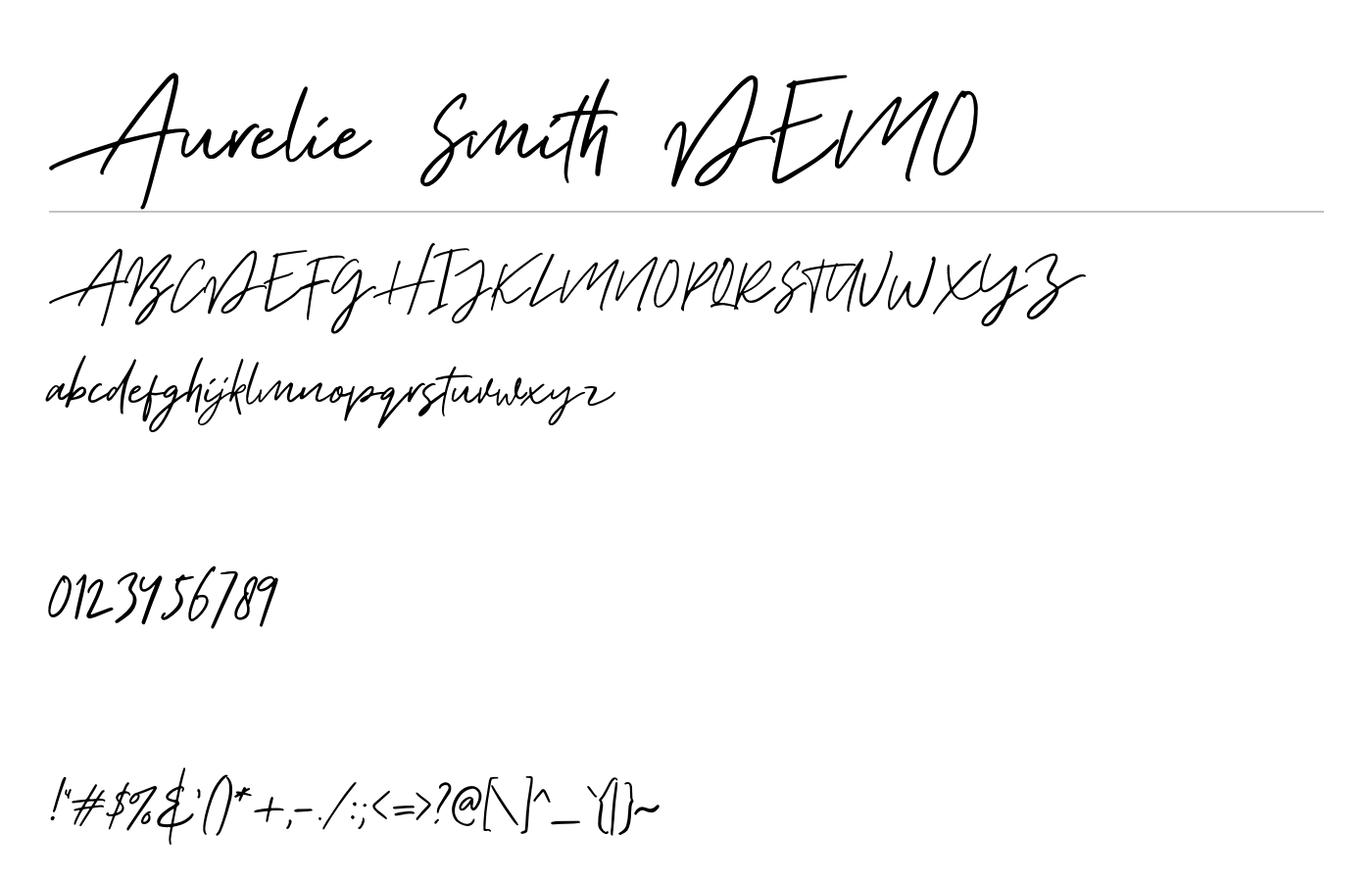
Aurelie Smith DEMO is a delicate, handwritten script font with a light, airy feel and natural flow. Its thin strokes, casual yet elegant style, and slightly irregular letterforms give it a personal, artistic touch perfect for creative branding, invitations, and stylish editorial use. This font works best when you want to convey warmth, individuality, and a modern handwritten charm.
Aurelie Smith DEMO Font
About Aurelie Smith DEMO Font